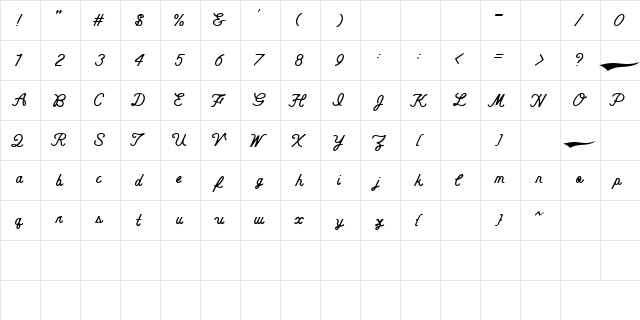
CheerScriptROUNDRegular Regular
Design Context for CheerScriptROUNDRegular Typeface
CheerScriptROUNDRegular brings a calligraphic fluidity to the page — its connecting strokes and expressive curves give it an unmistakably human quality.
Font Pairing: Combine CheerScriptROUNDRegular with a simple geometric sans for maximum contrast — the tension between flowing curves and clean structure is a classic typographic pairing.
Pro Tip: Use CheerScriptROUNDRegular for short runs of text — names, titles, or taglines. Extended body copy in script faces tires the eye quickly.